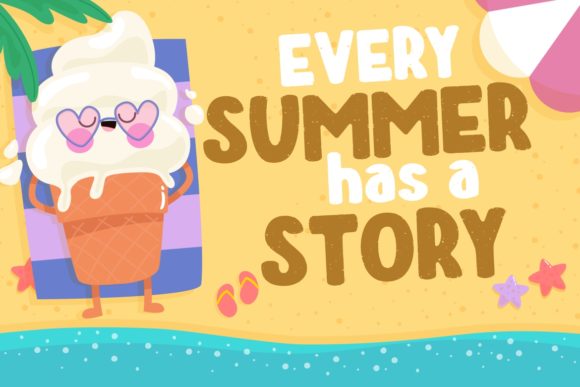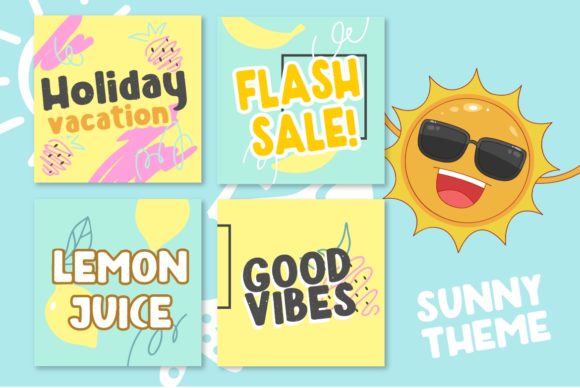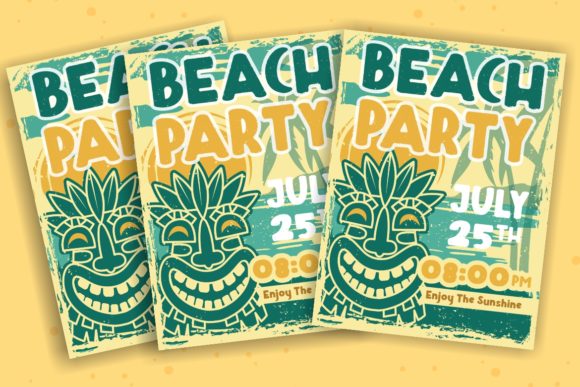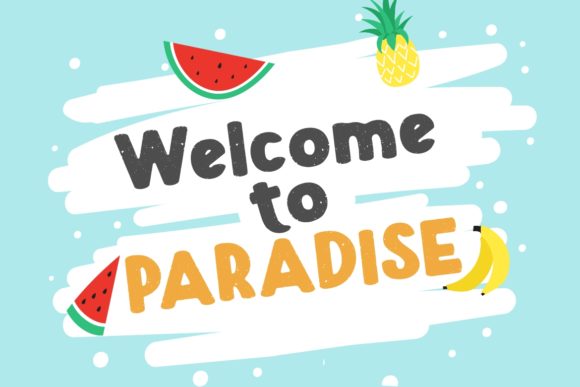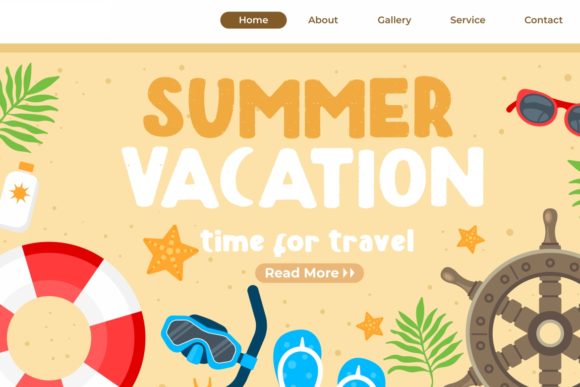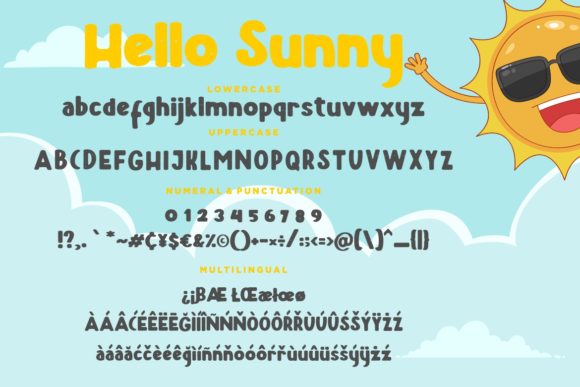
Adding a Splash of Sunshine to Your Designs
Have you ever been brainstorming a new project, and the perfect font just seems to be missing? You know, that elusive combination of style and personality that elevates your idea from good to great? That’s where the Hello Sunny Font comes in – a bold and authentic display font designed to add a touch of warmth and character to your creative endeavors.
With its vibrant personality, Hello Sunny Font is the perfect addition to any design project that needs a little extra oomph. Whether you’re working on a branding campaign, a social media graphic, or a web page, this font is sure to make your ideas stand out. And with its versatility and ease of use, designers of all levels can incorporate Hello Sunny Font into their workflow with confidence.
Hello Sunny Font Key Features
- Unique Characteristics: This font features a unique blend of modern and vintage elements, creating a distinctive and eye-catching look.
Hello Sunny Font Review
As a designer, I was excited to try out the Hello Sunny Font. Here’s my honest review:
- Warm and inviting feel: The font’s unique design gives off a sunny, optimistic vibe that’s perfect for branding and design projects that need a boost of energy.
- Highly legible: Even at smaller font sizes, Hello Sunny remains clear and easy to read, making it a great choice for body text or headlines.
- Fun and playful: The font’s quirky design makes it a great fit for creative projects, such as children’s books, ads, or social media graphics.
- Limited versatility: While Hello Sunny is perfect for certain projects, it may not be the best choice for more formal or professional designs, such as corporate reports or academic papers.
- May not be suitable for small text: While the font is highly legible, it may become too busy or overwhelming when used for very small text sizes.
Hello Sunny is a fun and energetic font that’s perfect for projects that need a burst of creativity. While it may not be suitable for all types of designs, it’s a great addition to any designer’s toolkit. With its unique feel and high legibility, Hello Sunny is sure to bring a smile to your client’s face.
Use Hello Sunny Font for:
- Creating cheerful and uplifting designs.
- Adding a touch of personality to your branding.
- Designing invitations, posters, and other promotional materials.
For optimal results, pair Hello Sunny Font with bright and bold colors to create a visually appealing design.